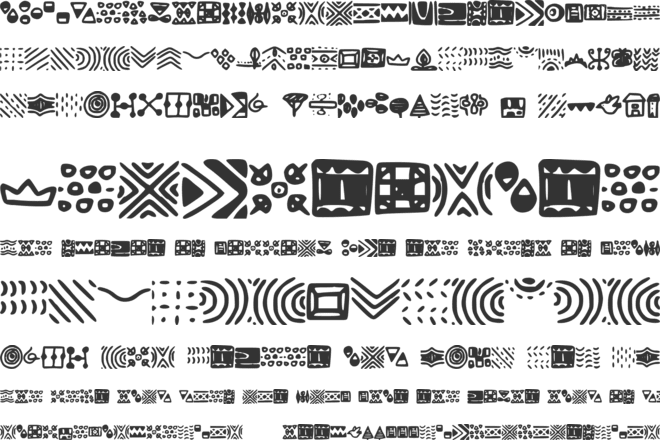
Patterns Font
Have fun using these dingbats! It's totally free! These are great to use as background patterns with some of them having an ethnic feel!